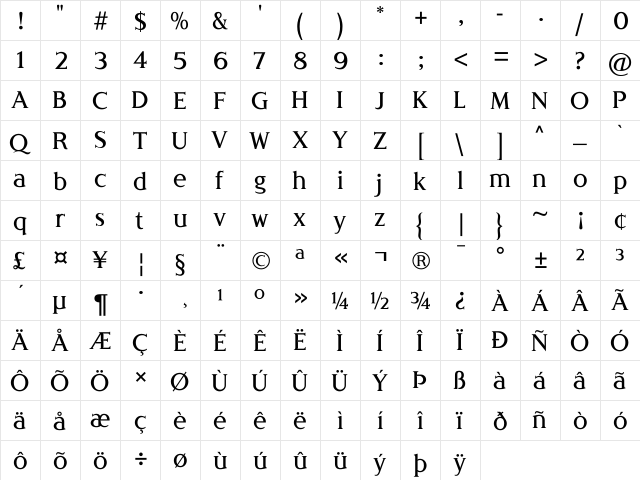
Londinia Medium Regular Font Preview
Londinia Medium Regular
| Foundry | K-Type |
| Designer | Keith Bates |
| Copyright | Londinia Medium by Keith Bates 016 https://www.k-type.com Londinia is a contemporary Roman typeface with clear, open shapes and streamlined serifs. Small serif-shaped cutaways and subtle incisions give a lift to congested corners. |
Design Context for Londinia Medium Typeface
Londinia Medium takes a measured approach to typography — its balanced proportions and neutral character make it a reliable workhorse for both digital and print work.